Fonts on Friday: Three indie typefaces to add to your collection
What better time to round up new typefaces than on Friday. Not only is “Fonts on Friday” alliterative, but showcasing new fonts also seems like a good way to end the week as well.
Here are three typefaces that caught our eye in the past week:
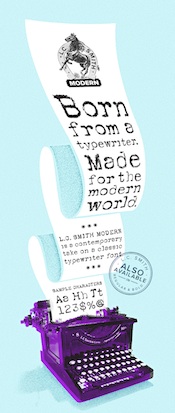
L.C. Smith is a typewriter-style font by TunnelBravo. But rather than create letterforms shaped like a font produced by any old typewriter, L.C.Smith is derived from the characters printed by TunnelBravo’s own 1929 L.C. Smith typewriter.
As a result, its color is irregular and its letterforms pitted just like the characters produced by an old typewriter with worn keys.
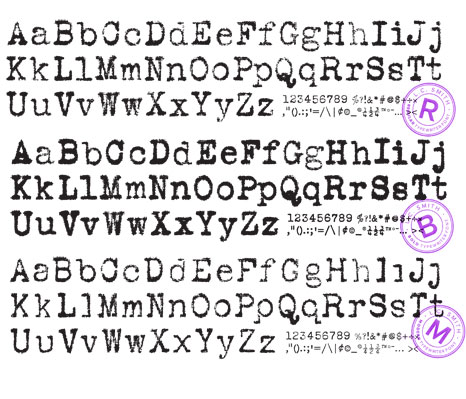
Abraham Lincoln, designed by Frances Macleod, is described as “Tall. Skinny. Honest.” The designer says she created it out of frustration for finding a condensed serif.
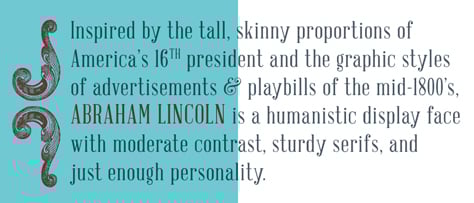
Malleable Grotesque is a seven-weight, 15-font sans serif designed by Lucas Sharp and Juan Carlos Pagan. The designers say the typeface is “based on the softness of forged metals.” The edges of the letterforms are slightly rough and rounded like the contours of molten iron.